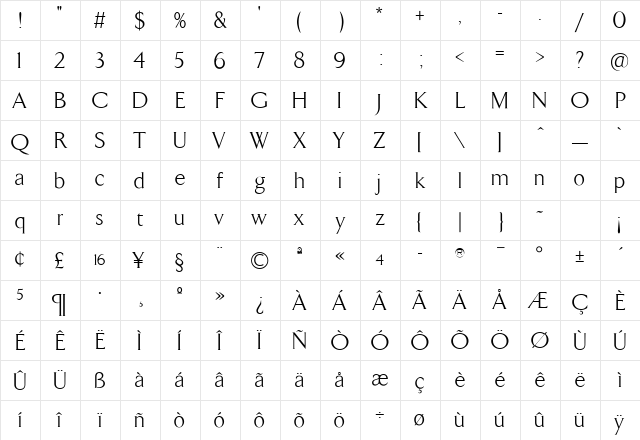
TFArrow Light Free Font
TFArrow Light
Foundry: TF(Headliners)Arrow -Light,v (Ship# ), . . jtFOG .Glyphs HL,Data &owned by TFI. All world rights reserved
Design Context for TFArrow
TFArrow is a composed and adaptable typeface that performs quietly and consistently across a wide range of design contexts. Its slender proportions lend an understated elegance to any composition.